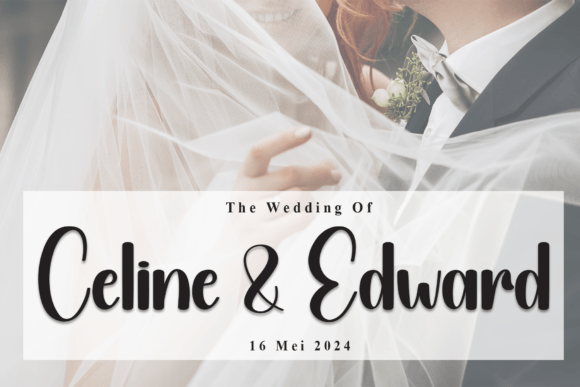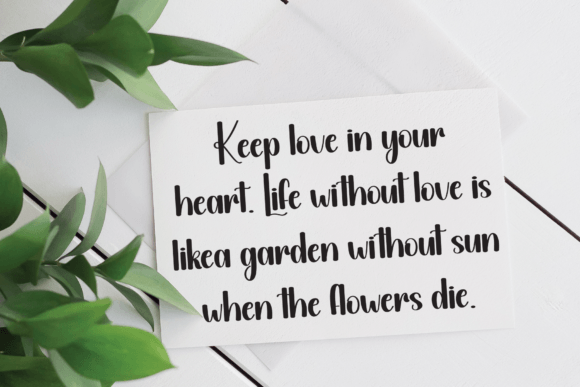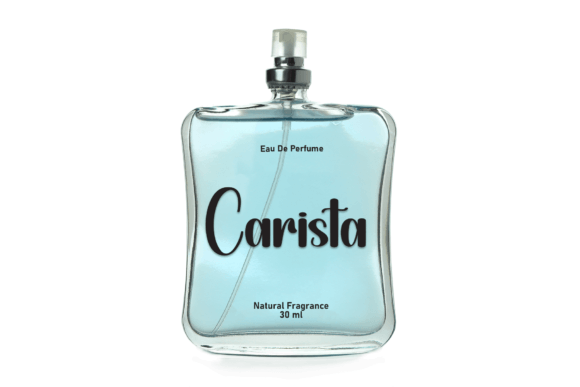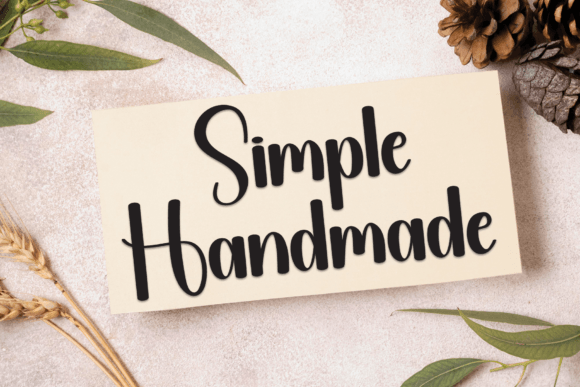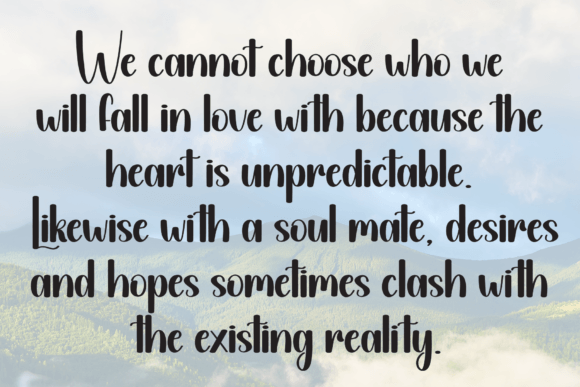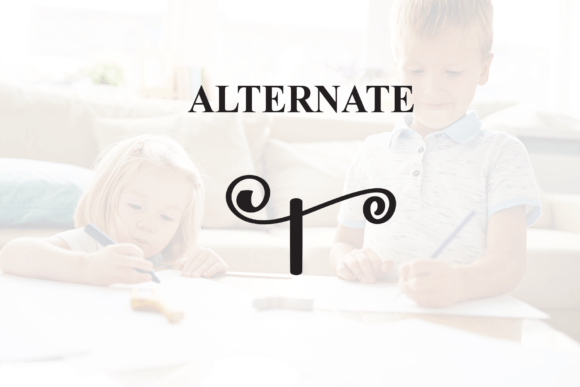
Discover the Charm of Brother Font: A Sweet and Friendly Handwritten Delight
Are you on the hunt for a font that adds a personal touch to your designs? Look no further than Brother Font, a sweet and friendly handwritten font that’s perfect for a wide range of creative projects. With its natural and unique style, Brother Font is incredibly versatile, making it an excellent choice for designers and crafters alike. In this article, we’ll dive into the world of Brother Font, exploring its features, benefits, and uses, as well as provide tips on how to make the most of this delightful font.
The Unique Characteristics of Brother Font
Brother Font boasts a distinct, handwritten style that’s both sweet and friendly. Its natural, fluid strokes and subtle imperfections give it a charming, organic feel that’s reminiscent of handwritten text. This font’s unique characteristics make it perfect for designs that require a personal touch, such as invitations, greeting cards, and social media graphics.
One of the standout features of Brother Font is its versatility. Its clean and simple design makes it easy to read, while its elegant strokes and flourishes add a touch of sophistication. Whether you’re creating a blog post, a flyer, or a website, Brother Font is an excellent choice for adding a personal touch to your text.
The Benefits of Using Brother Font
So, why choose Brother Font for your design projects? Here are just a few benefits of using this delightful font:
- Versatility: Brother Font is incredibly versatile, making it suitable for a wide range of designs, from formal to informal.
- Readability: Despite its handwritten style, Brother Font is easy to read, making it perfect for body text and captions.
- Uniqueness: Brother Font’s unique style sets it apart from more traditional fonts, adding a touch of personality to your designs.
Tips for Using Brother Font Effectively
To get the most out of Brother Font, here are a few tips to keep in mind:
- Pair it with contrasting fonts: Brother Font pairs well with sans-serif fonts, such as Arial or Helvetica, for a clean and modern look.
- Use it for headings and titles: Brother Font’s unique style makes it perfect for headings and titles, adding a touch of personality to your designs.
- Experiment with colors: Brother Font looks great in a range of colors, from bold and bright to soft and pastel.
- Add texture and patterns: Consider adding texture and patterns to your design to complement Brother Font’s natural, handwritten style.
Brother Font in Action: Design Ideas and Inspiration
So, what can you create with Brother Font? The possibilities are endless! Here are a few design ideas and inspiration to get you started:
- Invitations and greeting cards: Brother Font’s sweet and friendly style makes it perfect for invitations and greeting cards.
- Social media graphics: Use Brother Font to add a personal touch to your social media graphics, such as Instagram posts and Facebook updates.
- Blog posts and articles: Brother Font is a great choice for blog posts and articles, adding a touch of personality to your written content.
- Branding and packaging: Consider using Brother Font for branding and packaging design, adding a unique and personal touch to your products.
In conclusion, Brother Font is a sweet and friendly handwritten font that’s perfect for designers and crafters looking to add a personal touch to their designs. With its natural and unique style, Brother Font is incredibly versatile, making it suitable for a wide range of creative projects. Whether you’re creating invitations, social media graphics, or blog posts, Brother Font is an excellent choice for adding a touch of personality to your text.